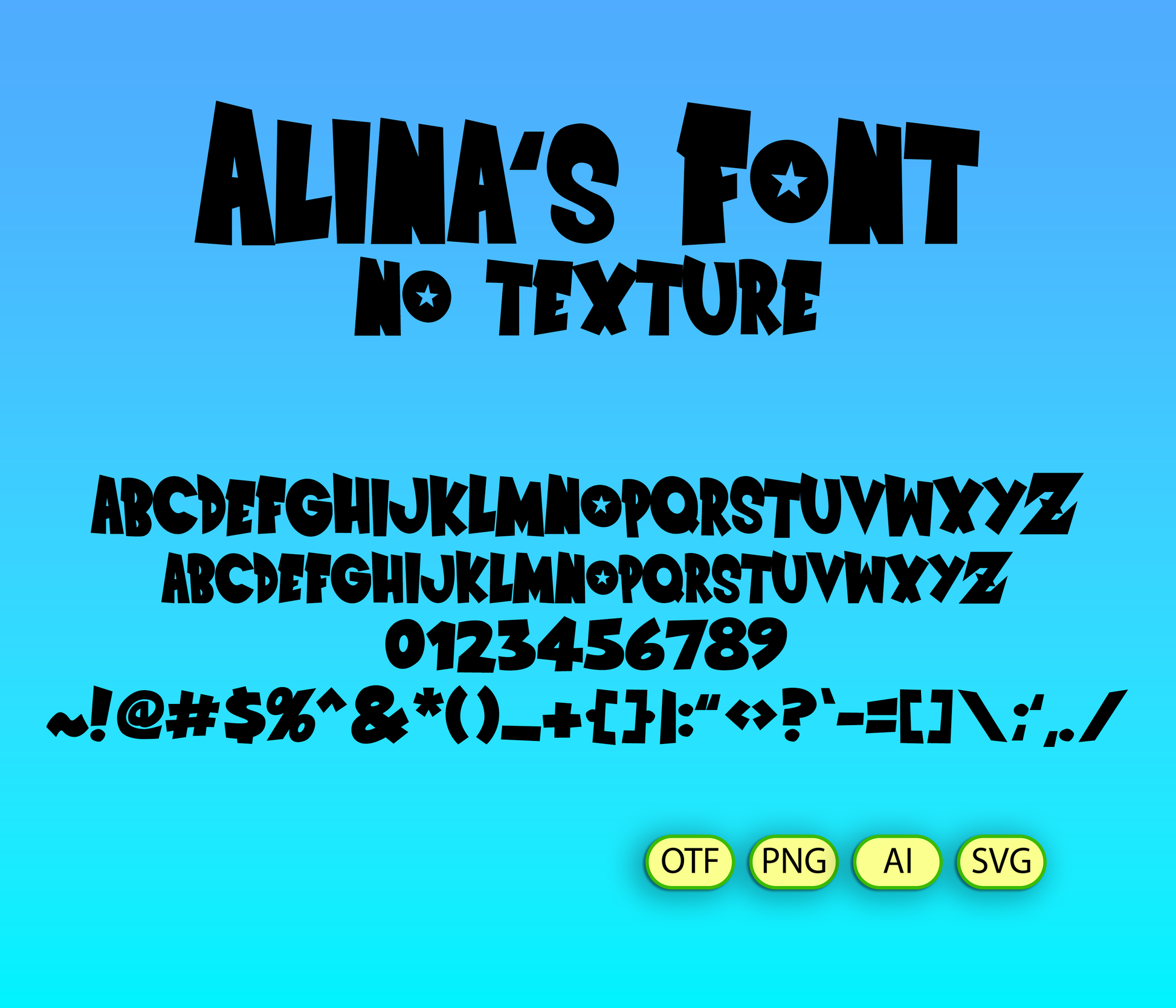
Energy-Charged Martial Arts Warriors Font
Step into the explosive world of super-powered fighters with our Energy-Charged Martial Arts Warriors font! This dynamic typeface captures the essence of legendary warriors who harness incredible ki energy, face otherworldly threats, and push the limits of their power through intense training and epic battles. Each character in this font radiates the intensity, determination, and earth-shattering energy that defines these iconic fighters.
What is the Energy-Charged Martial Arts Warriors font?
Envision a typeface that embodies the electrifying spirit and action-packed nature of these superhuman martial artists. Our font features bold, slightly jagged letterforms with a touch of energy aura, reminiscent of the warriors' power-up sequences. It includes a full set of alphabets, numbers, and special characters, perfect for a wide array of high-octane, action-oriented design projects.
What You Can Do With Energy-Charged Martial Arts Warriors Textured Font
This versatile font is ideal for various creative applications:
1. Manga and Comic Book Titles: Create eye-catching titles and text for stories about super-powered martial artists and intergalactic battles.
2. Anime Viewing Party Invitations: Design striking invites for series marathons or themed celebrations.
3. Martial Arts School Promotions: Incorporate the font into engaging flyers and posters for dojos and training centers.
4. Gamer Room Decor: Develop dynamic wall art, posters, or inspirational quotes featuring famous battle cries.
5. Social Media Content: Add an energetic touch to posts, stories, or fan art about beloved characters.
6. Cosplay Accessories: Craft personalized name tags, power level scanners, or signage for costume props.
7. Action Figure Packaging: Design appealing labels and boxes for warrior-themed toy lines.
8. Themed Apparel: Create bold graphics for t-shirts, hoodies, and other fan merchandise.
9. Fitness Motivation Materials: Develop engaging posters that blend martial arts themes with workout inspiration.
10. Event Banners: Design eye-catching signage for anime conventions or fighting game tournaments.
• Comprehensive Character Set: Offers a wide range of characters for complete design flexibility.
The Energy-Charged Martial Arts Warriors font is more than just a typeface; it's a celebration of the incredible journeys of super-powered fighters, the thrill of intense battles, and the spirit of constantly surpassing one's limits. Let your designs power up and unleash their full potential with this electrifying font!